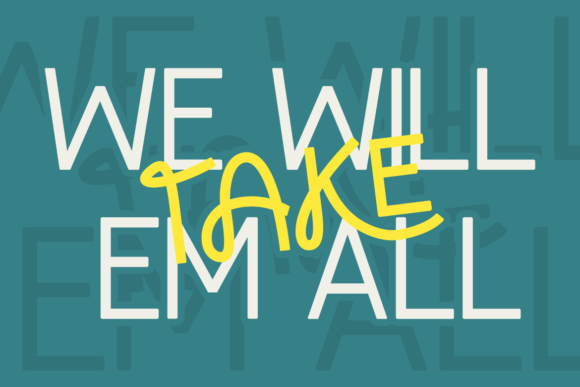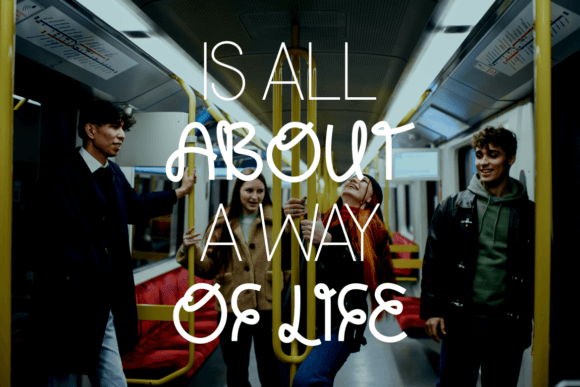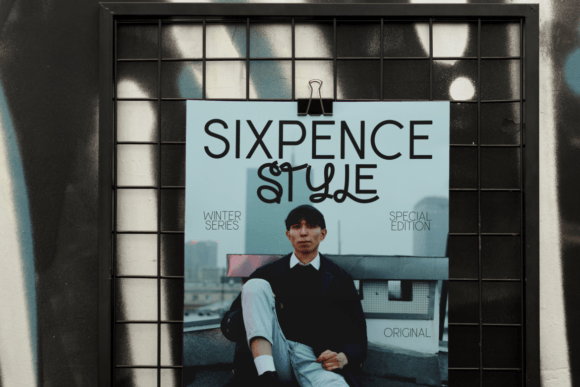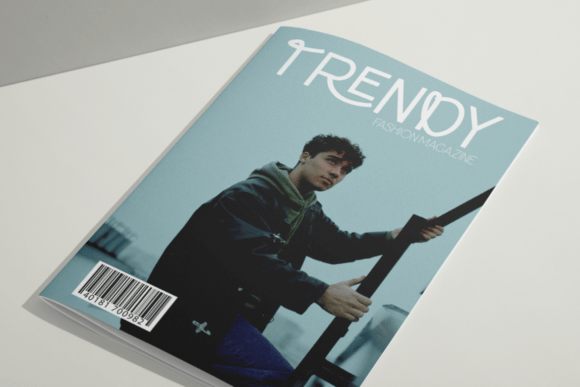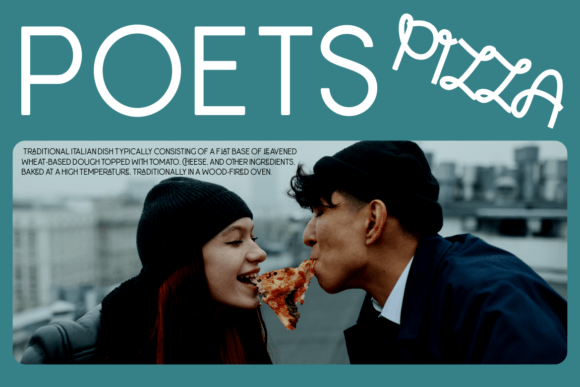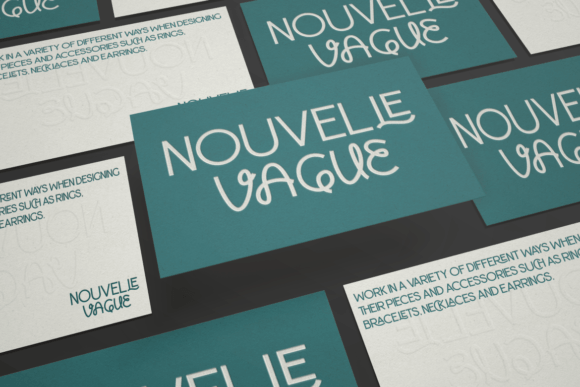
Introducing Conventri Font: Elevate Your Designs with Modern Elegance and Playfulness
In the world of typography, a font can make all the difference in the success of a design project. With the right font, you can convey your message with clarity, add aesthetic appeal, and even evoke emotions. This is where Conventri Font comes into play – a uniquely styled display typeface that combines the best of modernity, elegance, and playfulness. Conventri is not just another font; it’s a statement piece that can transform any text into a piece of art.
What Makes Conventri Stand Out?
Conventri is a sans serif font that breaks the mold with its curly cues integrated into each letter. This distinctive feature gives it a fresh and lively look, making it perfect for creative projects that demand a bit of flair. The font comes in two styles, offering versatility for various design applications. Whether you’re working on logos, branding materials, or crafting distinctive titles, Conventri brings a unique character and modern elegance that sets it apart.
Elegance Meets Modernity
Conventri strikes a perfect balance between elegance and modernity. Its clean, modern lines ensure readability, which is crucial for any design project. At the same time, its ornate details, such as the curly cues and ligatures, add a touch of sophistication and captivate the viewer’s attention. This balance makes Conventri an ideal choice for designers looking to make a statement with their work.
Practicality and Aesthetics
Conventri is not just about aesthetics; it’s also a practical choice for designers. Its readability ensures that your message is conveyed clearly, while its unique design elements make your project stand out. This combination of practicality and aesthetics makes Conventri suitable for a wide range of applications, from commercial projects like logos and branding materials to creative endeavors such as movie titles, book covers, and magazines.
The Power of Ligatures
One of the standout features of Conventri is its inclusion of ligatures. Ligatures are special characters that combine two or more letters into a single glyph, adding a touch of sophistication and fluidity to your text. In Conventri, ligatures are seamlessly integrated, enhancing the overall look of your design and making it more engaging. Whether you’re designing a logo, a headline, or a paragraph of text, Conventri’s ligatures ensure that your typography looks cohesive and elegant.
Applications of Conventri
The versatility of Conventri makes it suitable for a wide range of design projects. Here are some of the ideal applications for this modern font:
- Logos and Branding: Use Conventri to create unique and memorable logos that stand out. Its curly cues and ligatures add a touch of personality to your brand’s typography.
- Movie Titles and Book Covers: Conventri’s elegant and modern design makes it perfect for movie titles and book covers. It adds a touch of sophistication and captures the viewer’s attention.
- Magazines and Editorial Design: Enhance your magazine layouts with Conventri’s fresh and lively look. Its readability and aesthetic appeal make it ideal for headlines and titles.
- Advertising and Marketing: Use Conventri in your advertising and marketing materials to create eye-catching and memorable text. Its unique design ensures that your message stands out.
Conventri Font is a game-changer for designers looking to elevate their projects with modern elegance and playfulness. Its unique curly cues, ligatures, and clean lines make it a versatile and practical choice for a wide range of applications. Whether you’re working on a commercial project or a creative endeavor, Conventri brings a fresh and lively look that can transform any text into a piece of art. With Conventri, you can make a statement, evoke emotions, and leave a lasting impression on your audience.
Incorporate Conventri into your design toolkit and discover a world of possibilities. Its combination of elegance, modernity, and playfulness makes it an invaluable asset for any designer looking to create stunning and effective typography.